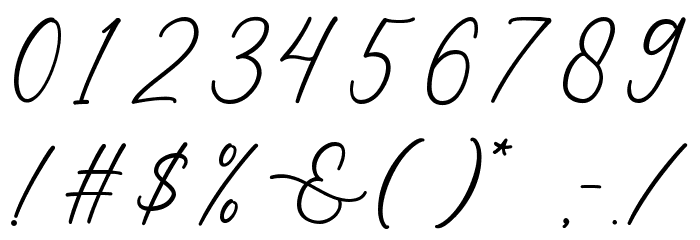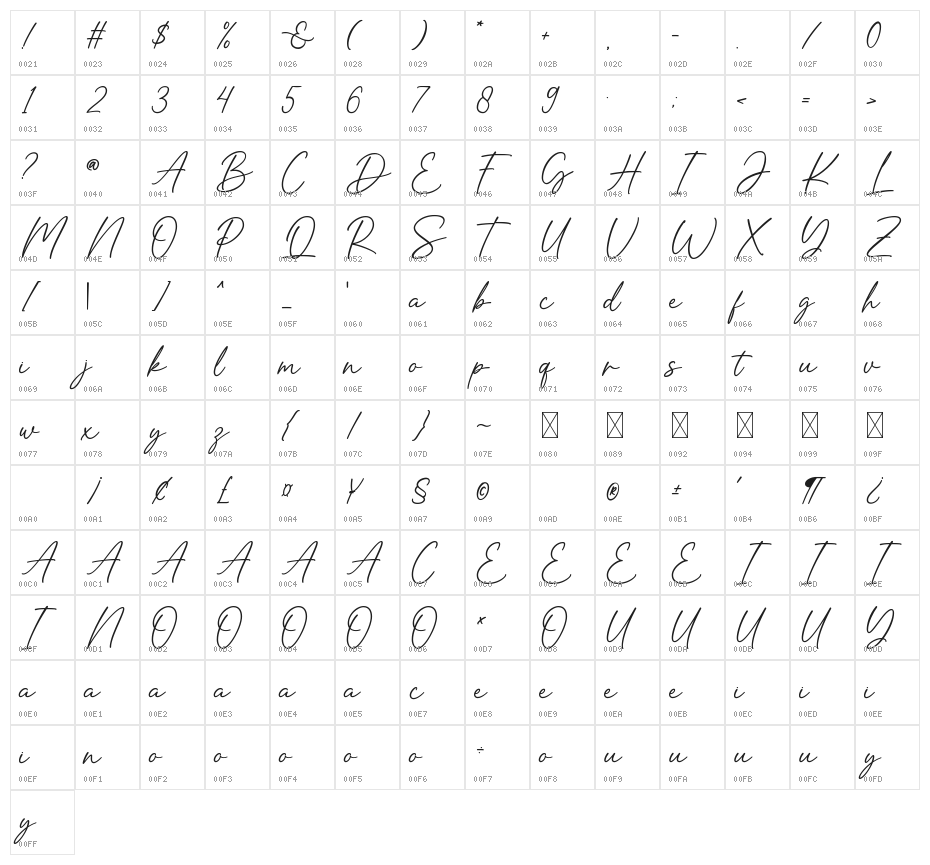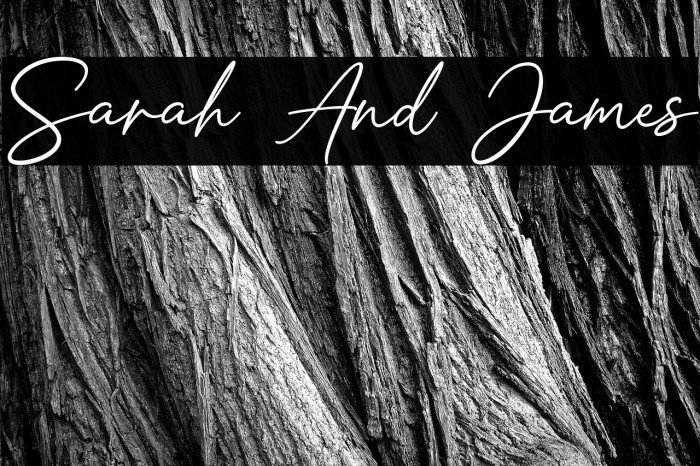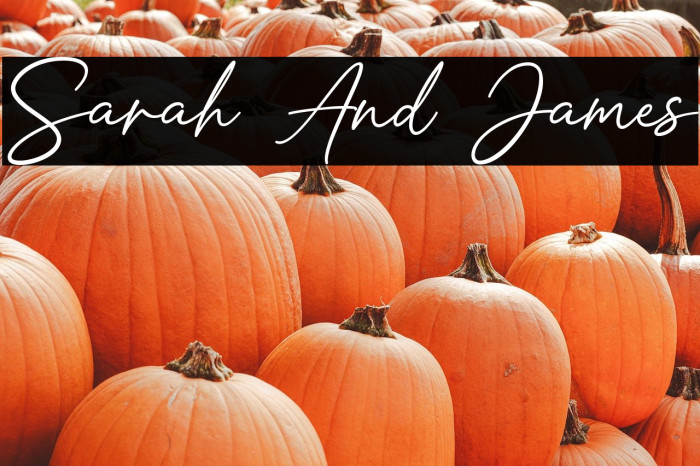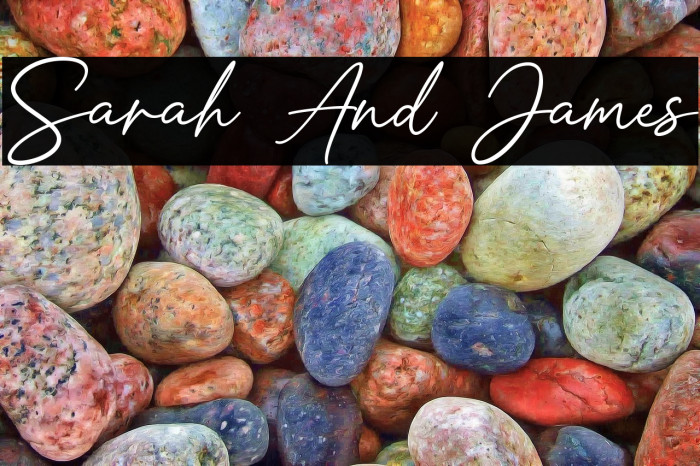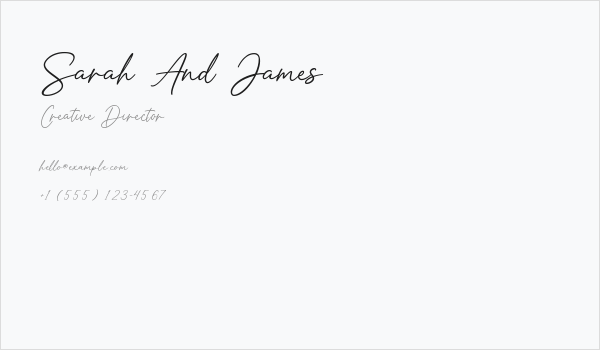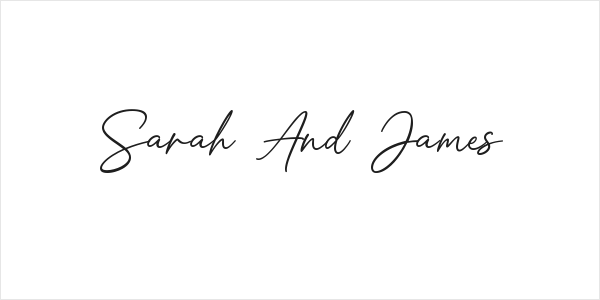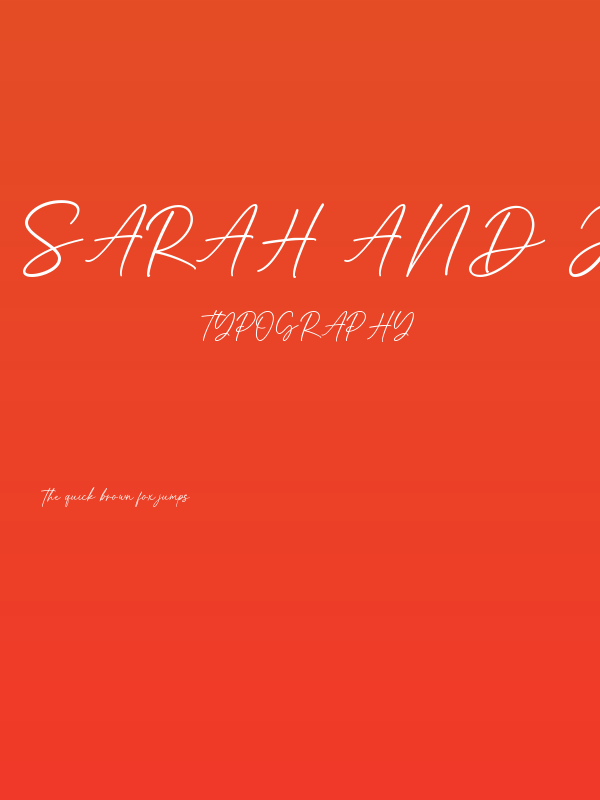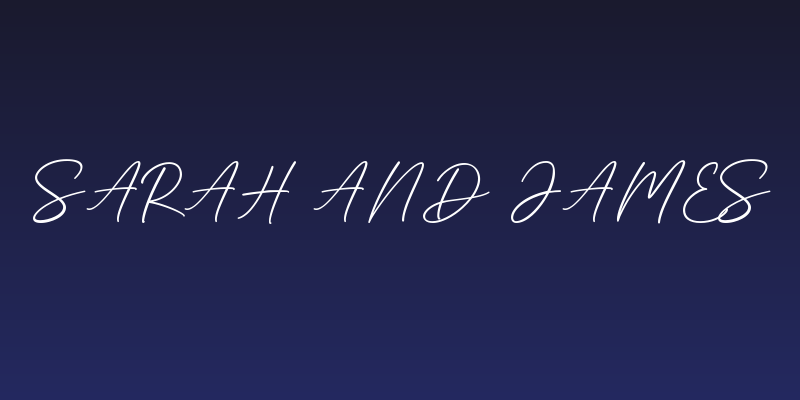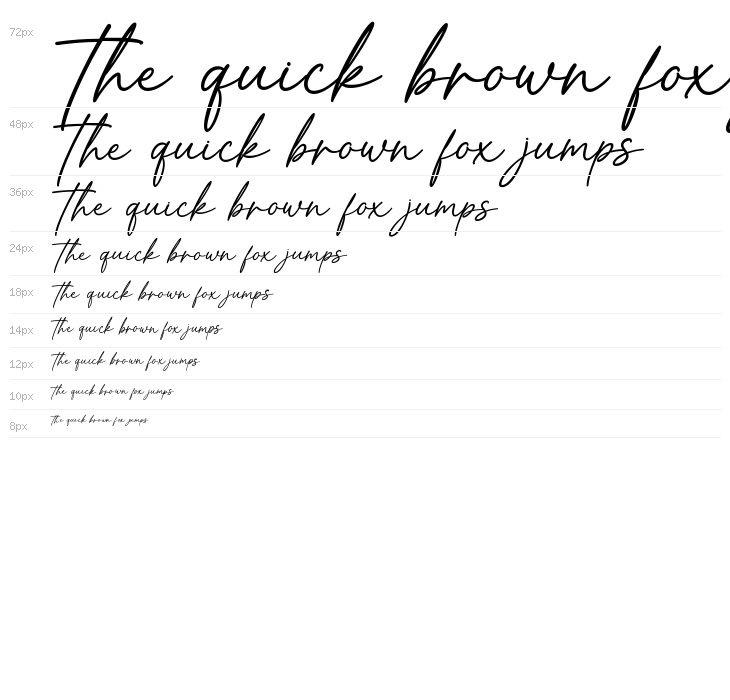
Sarah And James Font
Sarah And James Description
This elegant script font features a fluid and graceful style, reminiscent of traditional cursive handwriting. The uppercase letters are slightly larger and more ornate, while the lowercase letters maintain a consistent flow with gentle curves and loops. The numbers are clear and legible, maintaining the same cursive style, which adds a touch of sophistication. Special characters are seamlessly integrated, maintaining the overall aesthetic. The font's design is both classic and modern, making it versatile for various applications.
| Proposed Projects | Ideal for wedding invitations, greeting cards, personal branding, and elegant logos. |